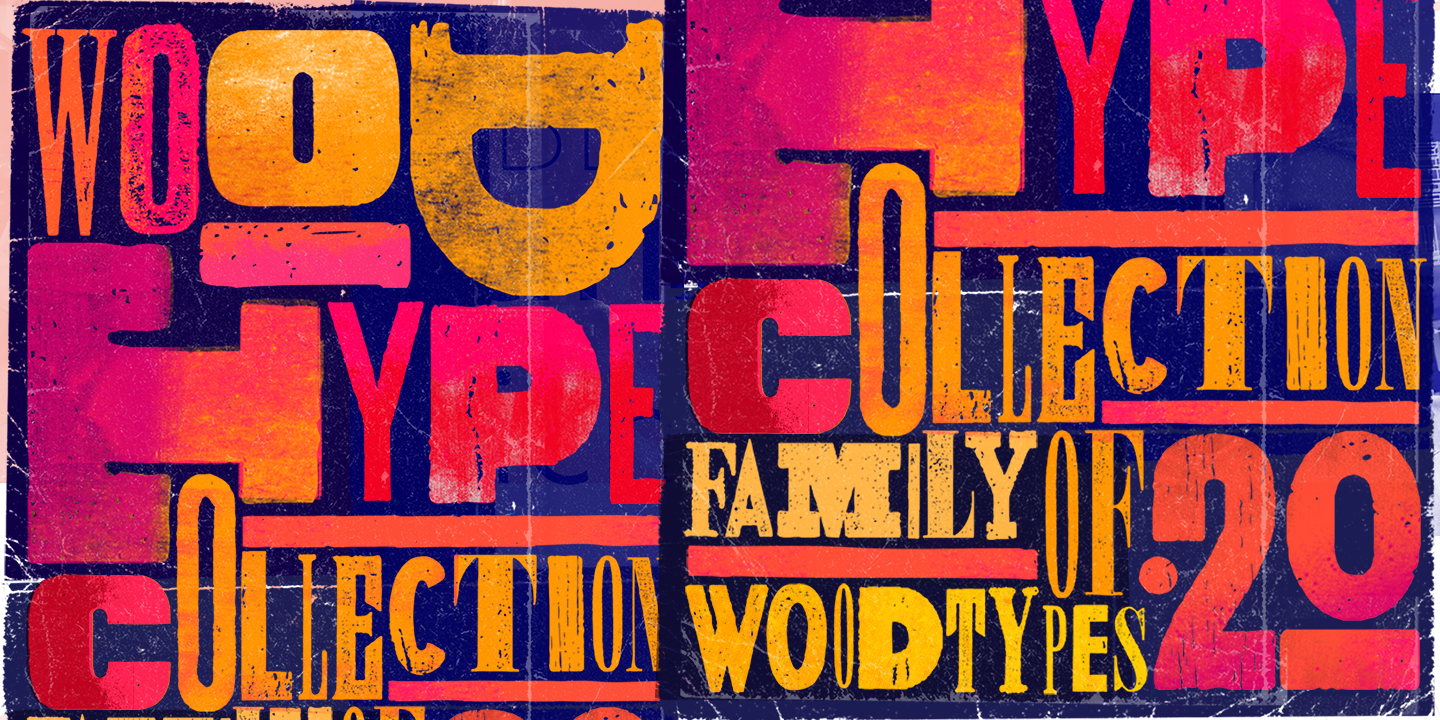
WOODTYPE Collection Font is perfect for vintage poster designs, retro branding projects, craft brewery logos, antique shop signage, western-themed graphics, historical reproductions, artisan product packaging, and nostalgic advertising campaigns.
WOODTYPE Collection Font is exciting because it authentically recreates the bold, impactful character of traditional wood type printing, bringing the raw energy and tactile quality of 19th-century typography into contemporary design projects. Its distinctive weathered textures and powerful presence make it an exceptional choice for brands seeking to evoke craftsmanship, heritage, and timeless American design traditions.
The WOODTYPE Collection Font family includes multiple historical styles: WOODTYPE Gothic, WOODTYPE Condensed, WOODTYPE Expanded, WOODTYPE Ornamental, WOODTYPE Tuscan, and WOODTYPE Slab Serif, along with distressed and clean versions, providing designers with an extensive library of authentic period typography options.
When searching for authentic vintage typography, WOODTYPE Collection Font Free Download emerges as the ultimate resource for designers who appreciate the bold impact and historical significance of traditional wood type. This remarkable collection captures the essence of American printing heritage while offering the technical precision that modern design projects demand. The font's authentic character imperfections and bold proportions create immediate visual impact that commands attention in any application.
Professional designers consistently turn to WOODTYPE Collection Font for projects requiring genuine vintage authenticity and powerful visual presence. Its carefully preserved historical details and robust letterforms work exceptionally well in both large-scale displays and intimate packaging applications. The font's ability to convey strength, tradition, and craftsmanship makes it invaluable for brands that want to establish deep connections with their heritage and values.
Whether you're creating craft beverage branding, designing vintage event posters, or developing artisan product identities, WOODTYPE Collection Font provides the authentic character and commanding presence that distinguishes truly memorable designs. Its rich typographic heritage combined with modern technical standards ensures your projects achieve both historical accuracy and contemporary professional quality.